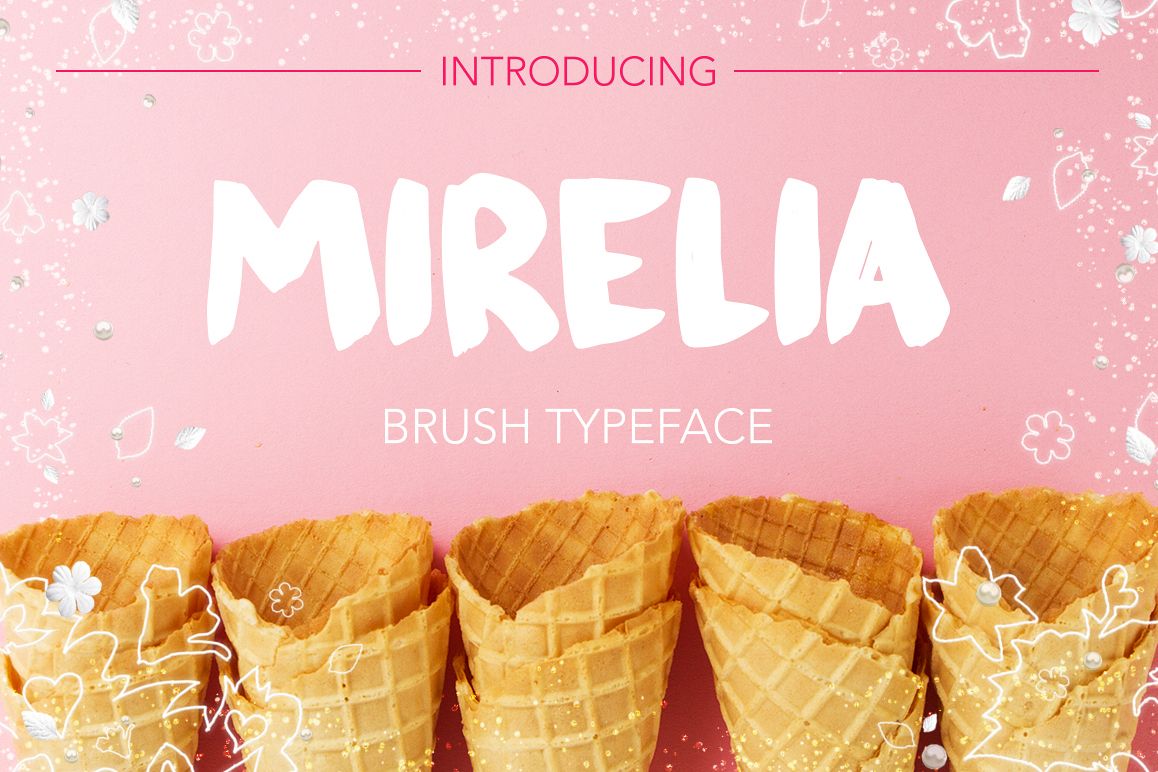
Mirelia font - brush typeface
? Mirelia - brush typeface! Font for your creative projects! ? This script is perfect for cards, prints, logos, invitations, arrange illustration and decoration. It has upper and lower case letters, numbers, special characters, accents.You will receive the fonts: